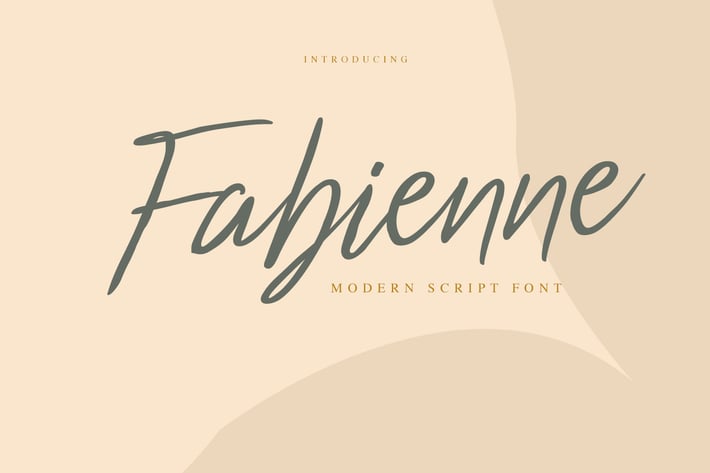
Fabienne Font
Introducing Fabienne Script
fashionable and natural script, combine with serif font for luxury and authentic looks,
Perfect for labels, quotes, posters, DIY projects, branding, packaging, greeting cards, websites, photography overlays, signs, wallpaper, cutting, hang tags, brand, logo, and so much more!
fashionable and natural script, combine with serif font for luxury and authentic looks,
Perfect for labels, quotes, posters, DIY projects, branding, packaging, greeting cards, websites, photography overlays, signs, wallpaper, cutting, hang tags, brand, logo, and so much more!